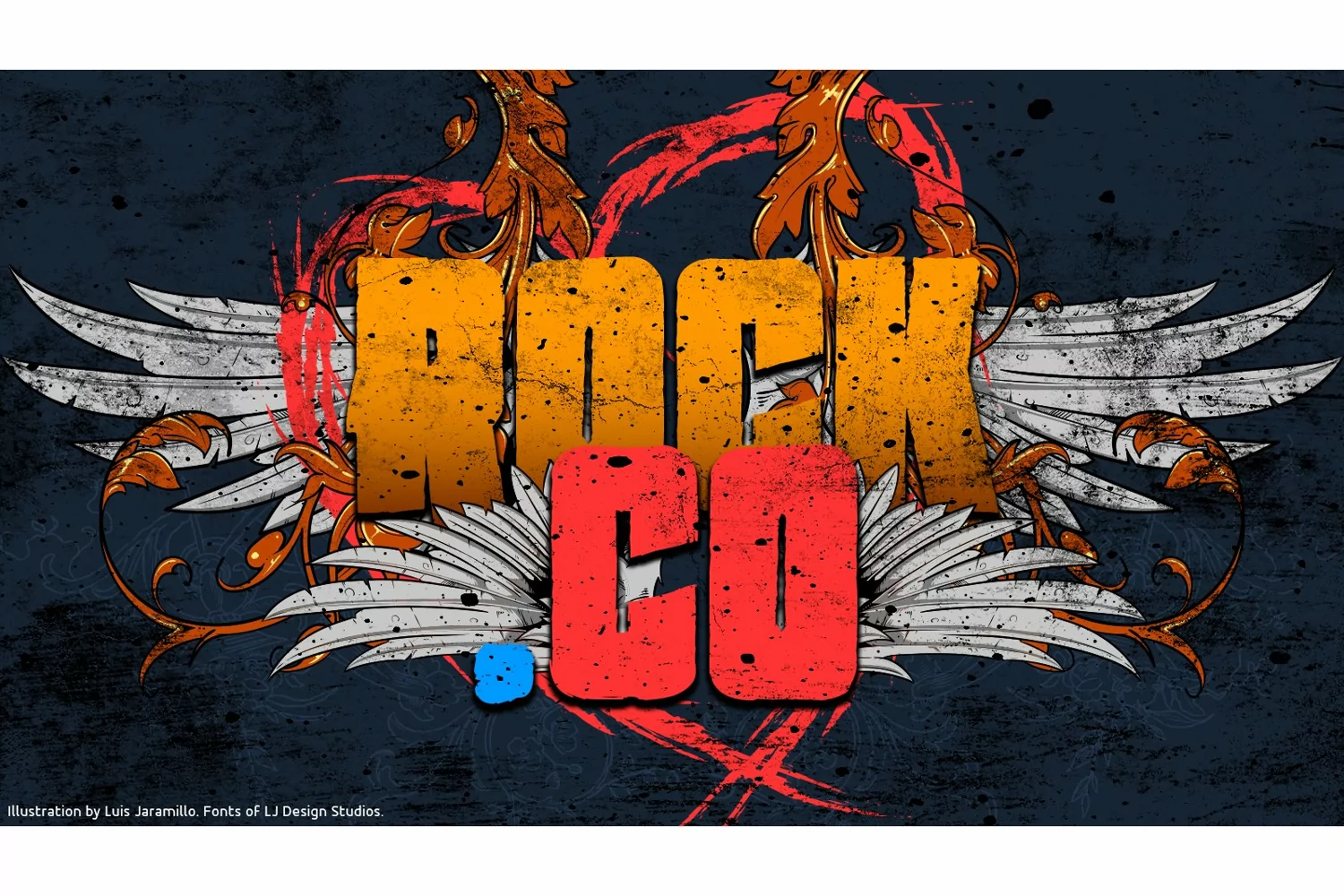
Rock.CO
Rock.CO-Regular
This is an Idea of Luis Jaramillo, in honor of the music in this genre and its aspects, giving support to the bands of Rock, heavy metal and similar genres that in Colombia are executed.
We have adapted your idea to an adjustable style to the different genres, and ... why not for big events?
We have a format of a Black font ideal for illustrations, advertising designs and / or advertisements.
Esto es una Idea de Luis Jaramillo, en honor a la música en éste género y sus vertientes, Dando apoyo a las bandas de Rock, heavy metal y géneros similares que en Colombia se ejecutan.
Hemos adaptado su idea a un estilo ajustable a los distintos géneros, y.. ¿porque no para grandes eventos?
Tenemos un formato de una fuente Black ideal para ilustraciones, diseños publicitaros y/o anuncios.